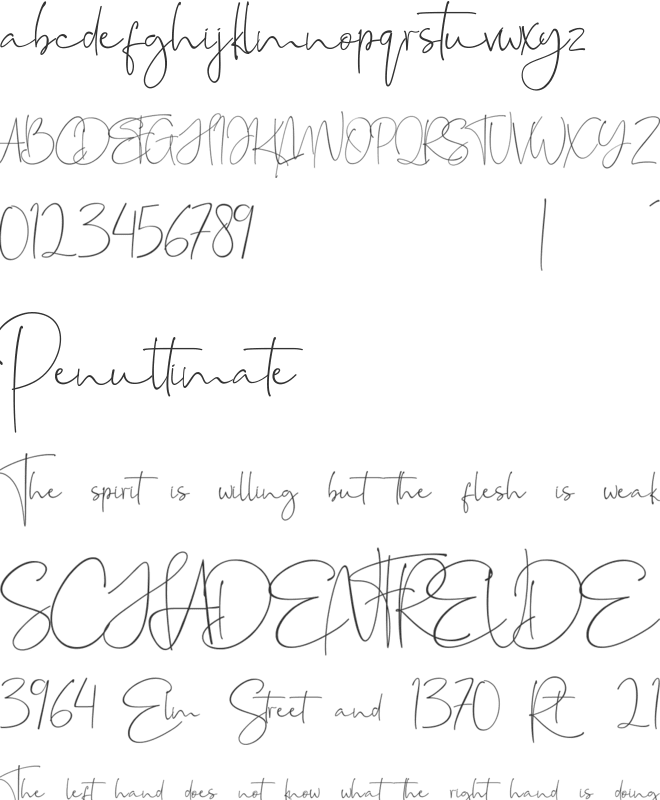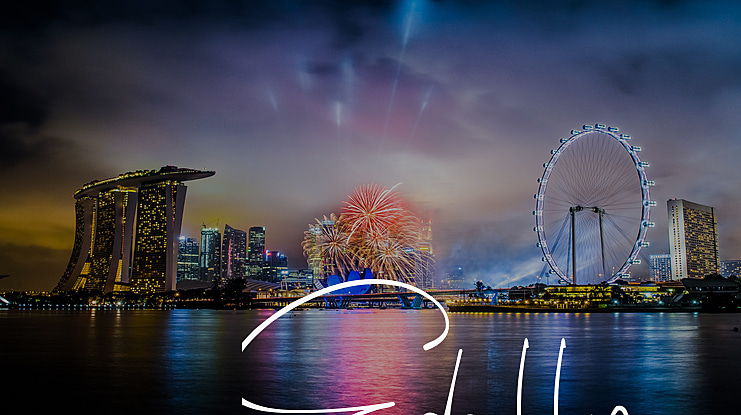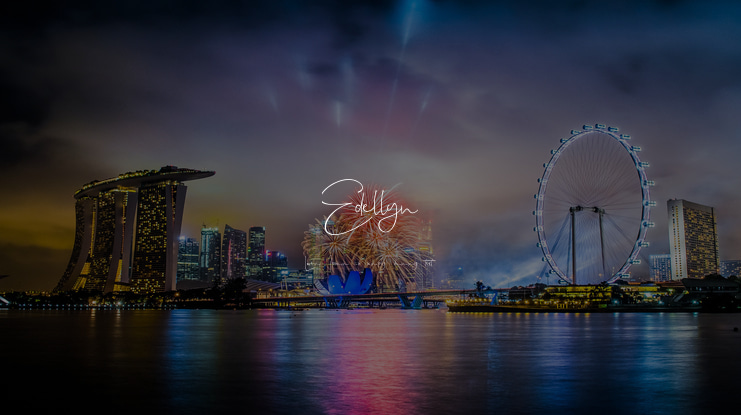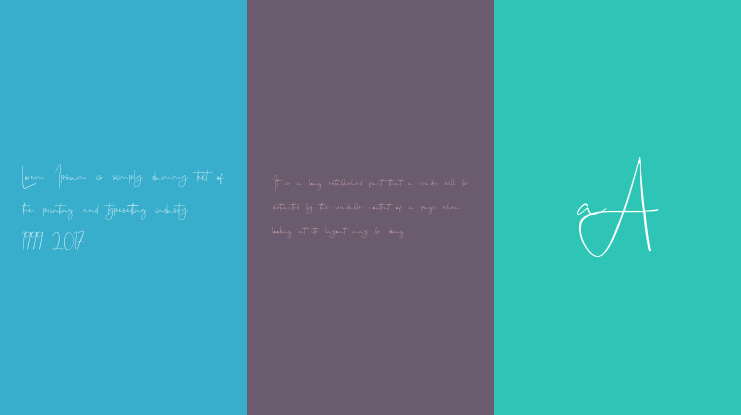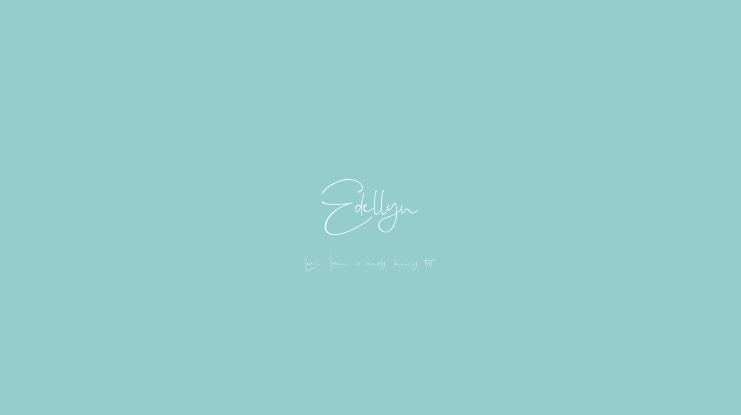
Edellyn Font
Hello guys...We proud presenting our new font.It's name Edellyn - a luxury signature fontEdellyn  is a beautiful signature font. It is a cute a luxury font. You can be used for invitation, logos & branding , photography, advertisements, watermark, social media posts, product packaging, product designs, label, wedding designs, stationery, special events or anything that need handwriting taste.Edellyn Font Features :Edellyn Script TTFEdellyn Script OTFEdellyn Script WOFFSimple installationsPUA Encoded Characters - Fully accessible without additional design software.Fonts include multilingual support for; Afrikaans, Albanian, Catalan, Danish, Dutch, English, Icelandic, Italian, Spanish, Portuguese, German, Swedish, Norweigen, Polish, Indonesian, Zulu and etcThis font is free for personal use, so you can get it now! If you want to commercial use you can check our Shop>>>> http://bit.ly/31tJ88w and any question, you can message email : Please appreciate, if you like it :)Thank you